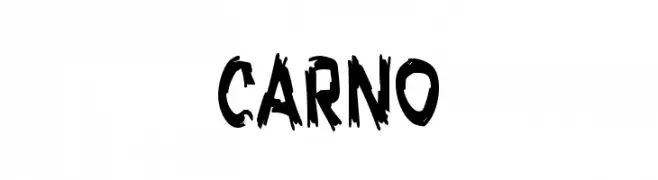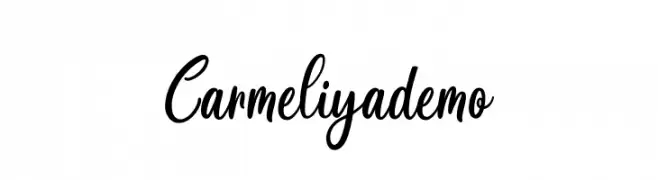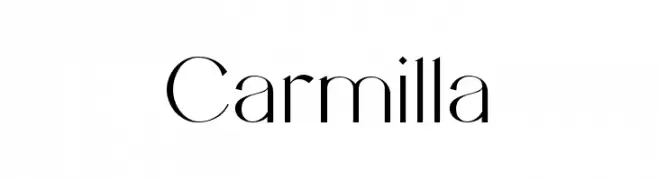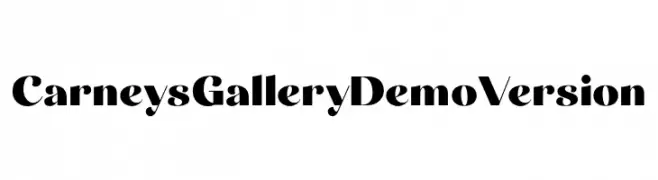
A lively, flowing script font with elegant curves and dynamic strokes.
A dynamic and elegant script font with flowing, fluid strokes.
A dynamic script font with fluid, sweeping strokes and calligraphic elegance.
An intricate and gothic Blackletter-style font with sharp, angular strokes and elaborate flourishes.
A modern, elegant font with geometric and organic elements.
A sophisticated and elegant script font with flowing, interconnected letters and high contrast.
A bold, high-contrast font with a modern and decorative style.
A fluid and elegant script font with a cursive, handwritten style.
A playful, decorative font with vintage carnival flair.
A bold, brush-like font with an energetic and artistic style.